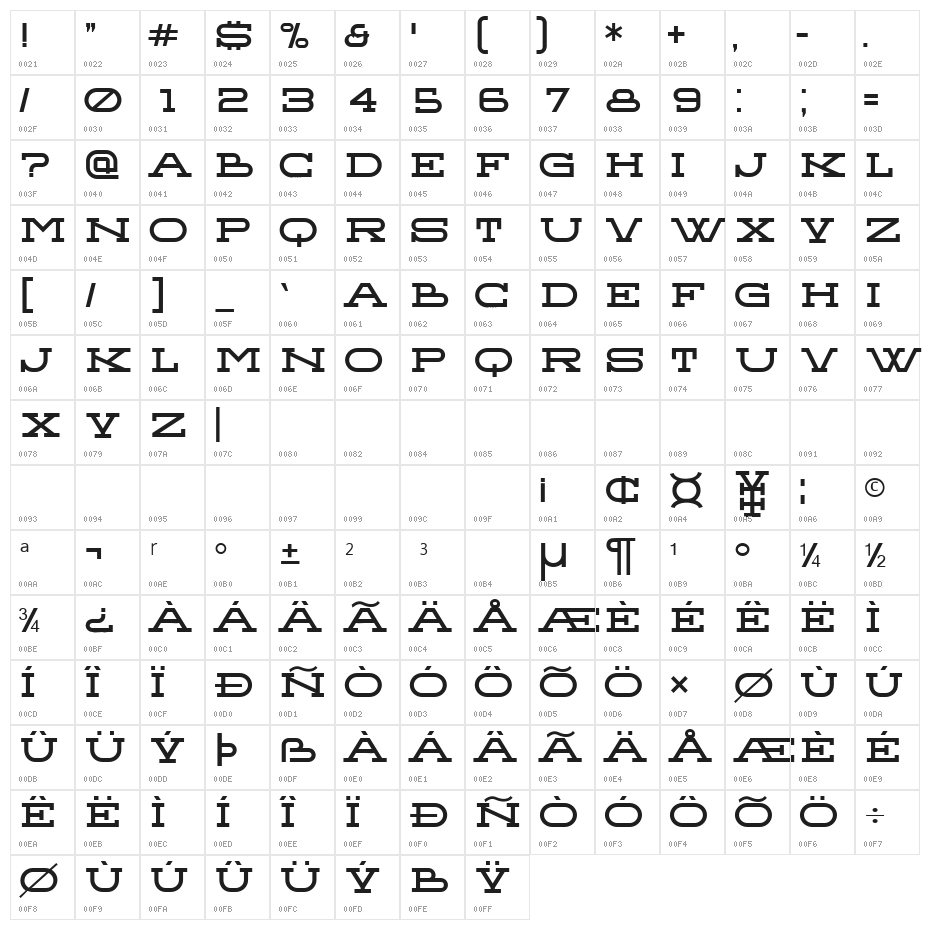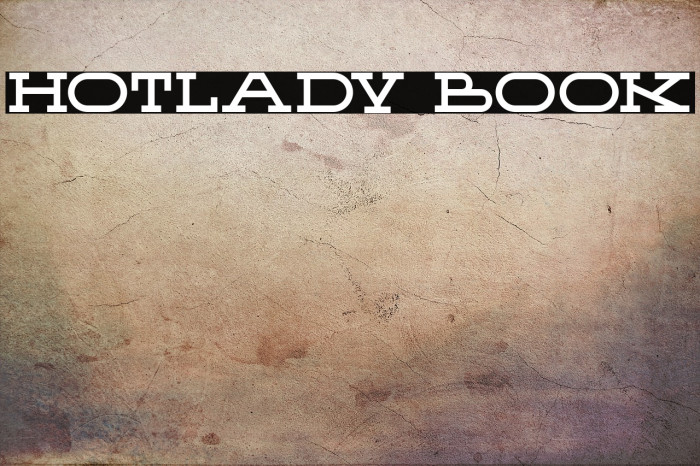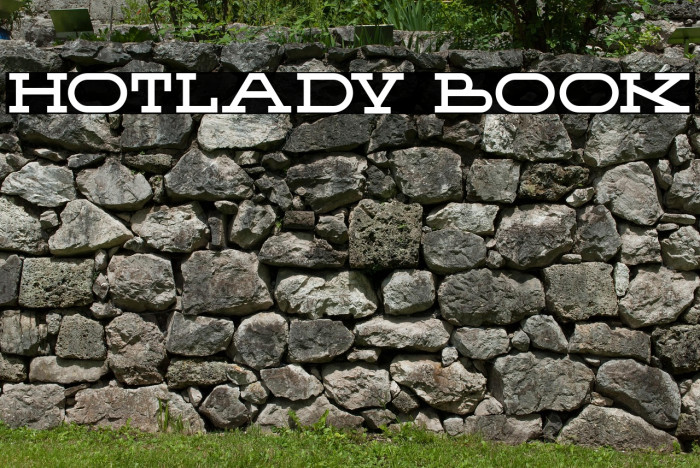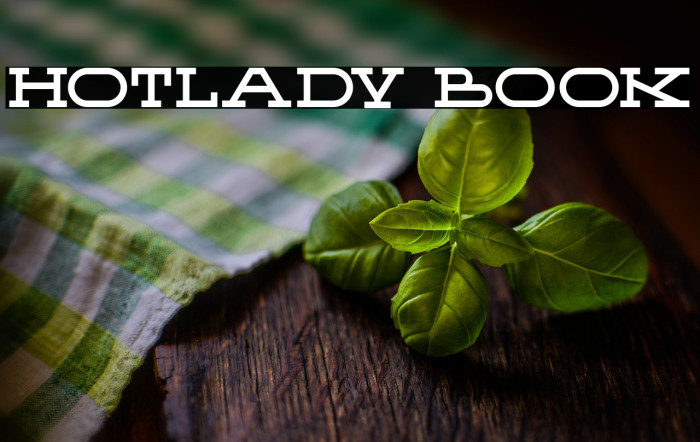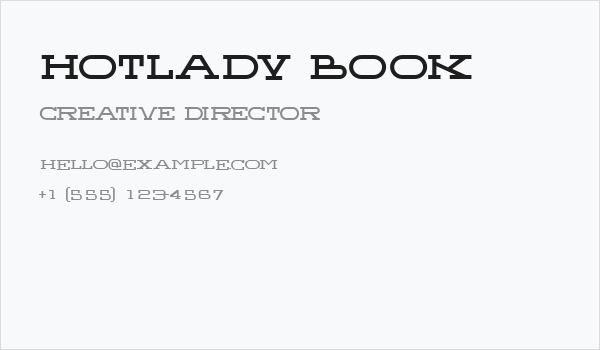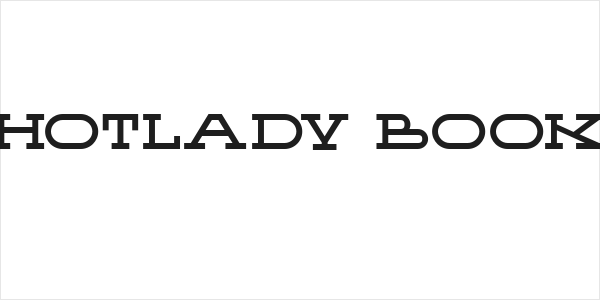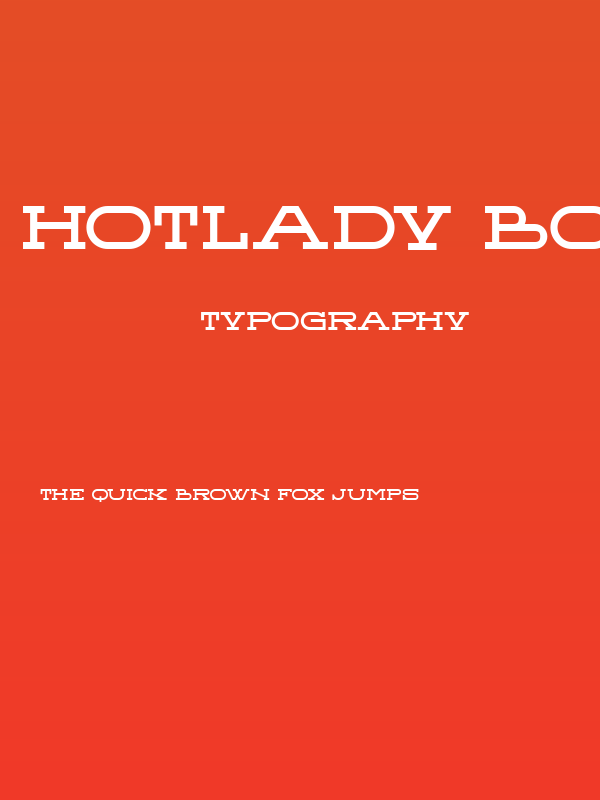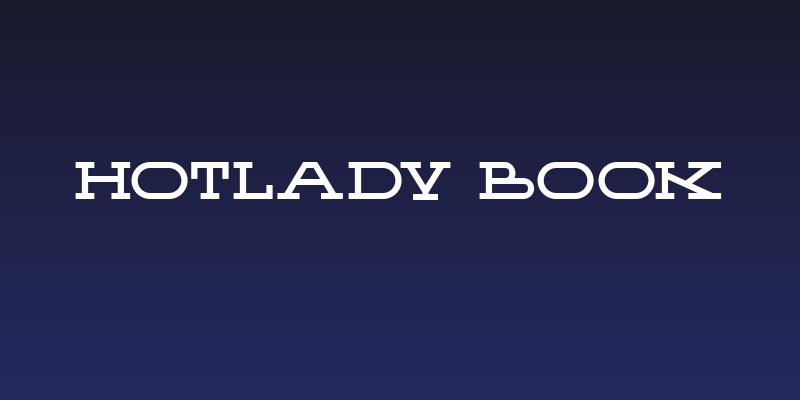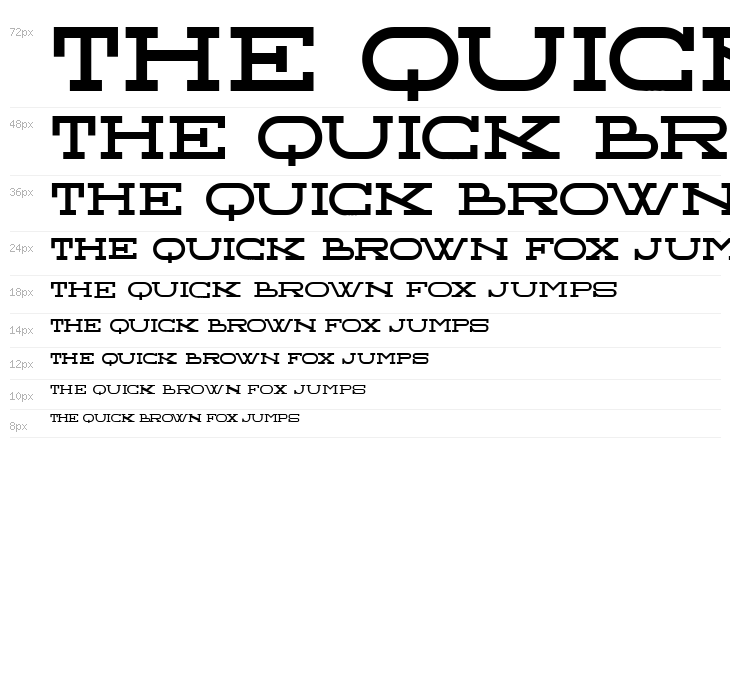
Hotlady Book Font
Hotlady Book Description
This font features a bold and geometric design with a distinct modern flair. The characters are constructed with clean lines and sharp angles, giving them a futuristic and technical appearance. The uppercase letters are particularly striking, with a uniform height and width that creates a cohesive look. The numerals and special characters maintain the same boldness and geometric style, ensuring consistency across all glyphs. The font's unique style makes it stand out, with a strong presence that commands attention. Its design is both functional and aesthetically pleasing, making it suitable for a variety of applications.